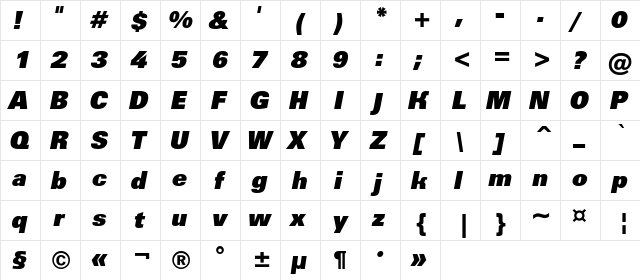
a_GroticExtraBlack Italic
Design Context for a_GroticExtraBlack Typeface
a_GroticExtraBlack is a composed and adaptable typeface that performs quietly and consistently across a wide range of design contexts. The dynamic lean of this cut emphasises speed and emphasis in any layout.